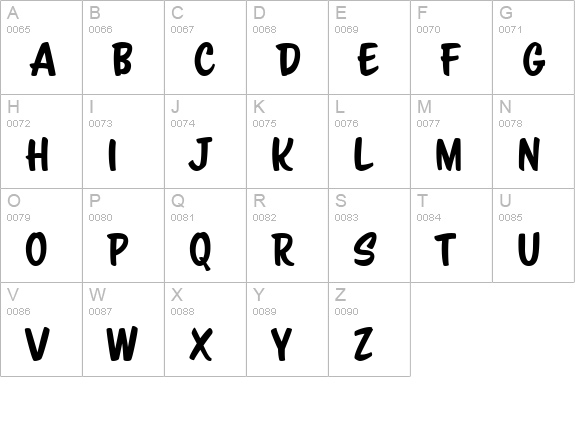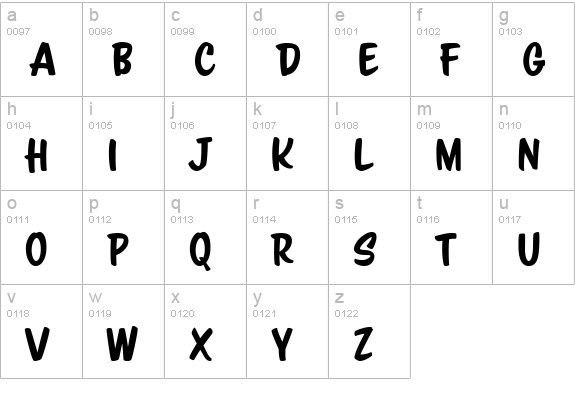
ScriptoramaMarkdownJF Font Details
ScriptoramaMarkdownJF is a stunningly elegant and versatile font that combines the timeless beauty of a script typeface with the modern simplicity of a markdown font. With its graceful curves and flowing letterforms, this font effortlessly captures attention and adds a touch of sophistication to any design project. This font is perfect for a wide range of applications, from logo design and branding to invitations and stationery. Its versatility allows it to be used in both formal and informal settings, making it a must-have for any designer or creative professional. One of the best things about ScriptoramaMarkdownJF is that it is completely free to download and use. Yes, you read that right – this incredible font is available at no cost! FontsMarket.com is proud to offer this font as a free download, allowing designers and enthusiasts from around the world to access its beauty and potential. Whether you're a seasoned designer or just starting out, ScriptoramaMarkdownJF is a valuable addition to your font library. Its unique blend of elegance and simplicity will help bring your ideas to life and make them truly stand out. So why wait? Head over to FontsMarket.com and download ScriptoramaMarkdownJF today – for free!